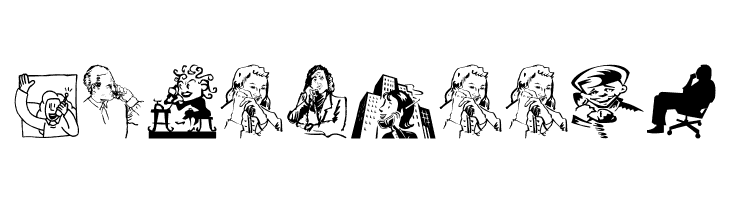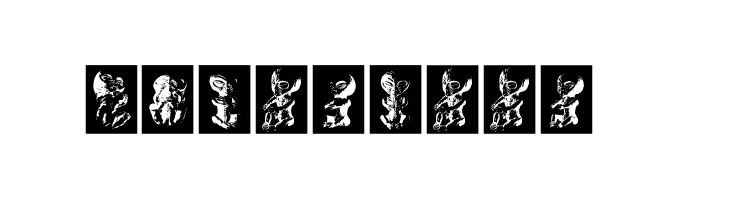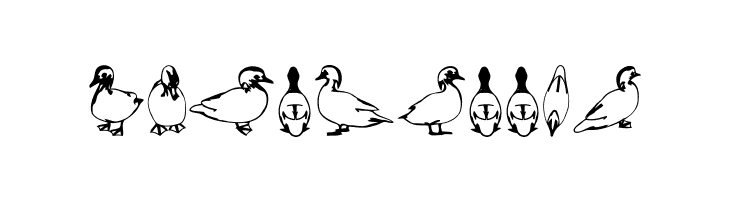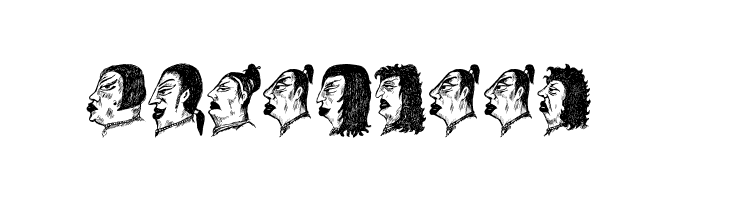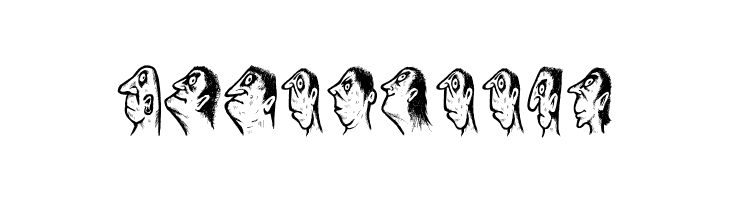
A display font composed of illustrated portrait glyphs instead of traditional letterforms.
A pictogram font with folk-inspired, hand-drawn illustrations.
A playful collection of bold, illustrative dingbats featuring objects and animals.
A pictogram font with diverse telephone and communication illustrations.
Hand-drawn illustrative font with women's faces as characters.
A display font using illustrated portraits for each character.
A playful, illustrative font featuring baby alien characters as glyphs.
Whimsical duck illustrations as font glyphs.
Illustrative font featuring hand-drawn human profiles as characters.
Hand-drawn caricature font with expressive, illustrated profiles.